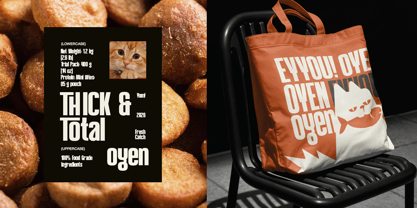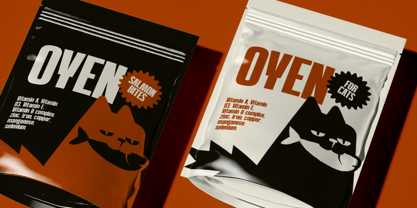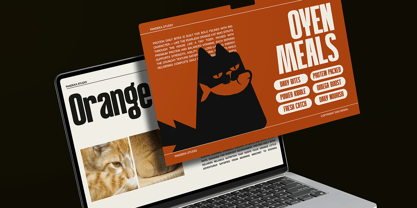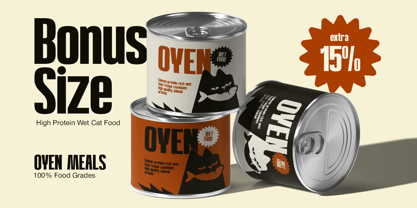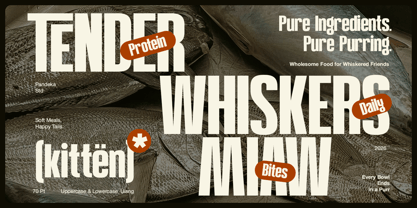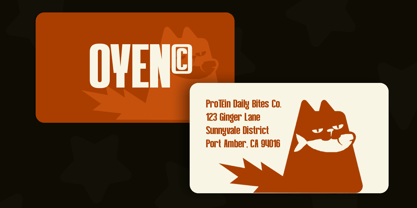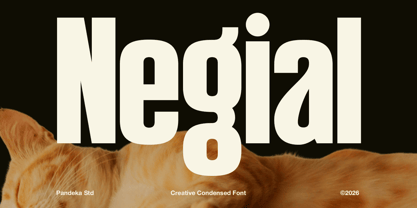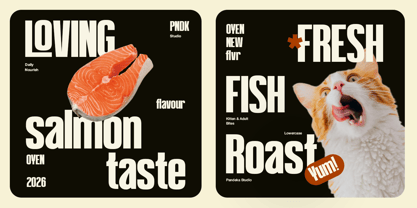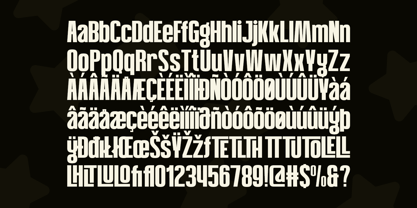
Negial
by Pandeka Studio
The Negial Font Family was designed by Sagara Nararya and published by Pandeka Studio. Negial contains 1 styles. More about this family
Negial is a bold and creative condensed display font designed to deliver maximum impact in limited space. With its tall proportions and compact structure, it creates a modern, strong, and attention-grabbing look, perfect for standout branding and powerful headlines.
Available in 1 style: Regular, Negial includes uppercase & lowercase letters, numbers, punctuation, multilingual support, and 10+ creative ligatures that add a distinctive and dynamic touch. Ideal for packaging, food branding, posters, promotional materials, labels, merchandise, and bold editorial layouts.
• 10+ Stylistic Ligatures